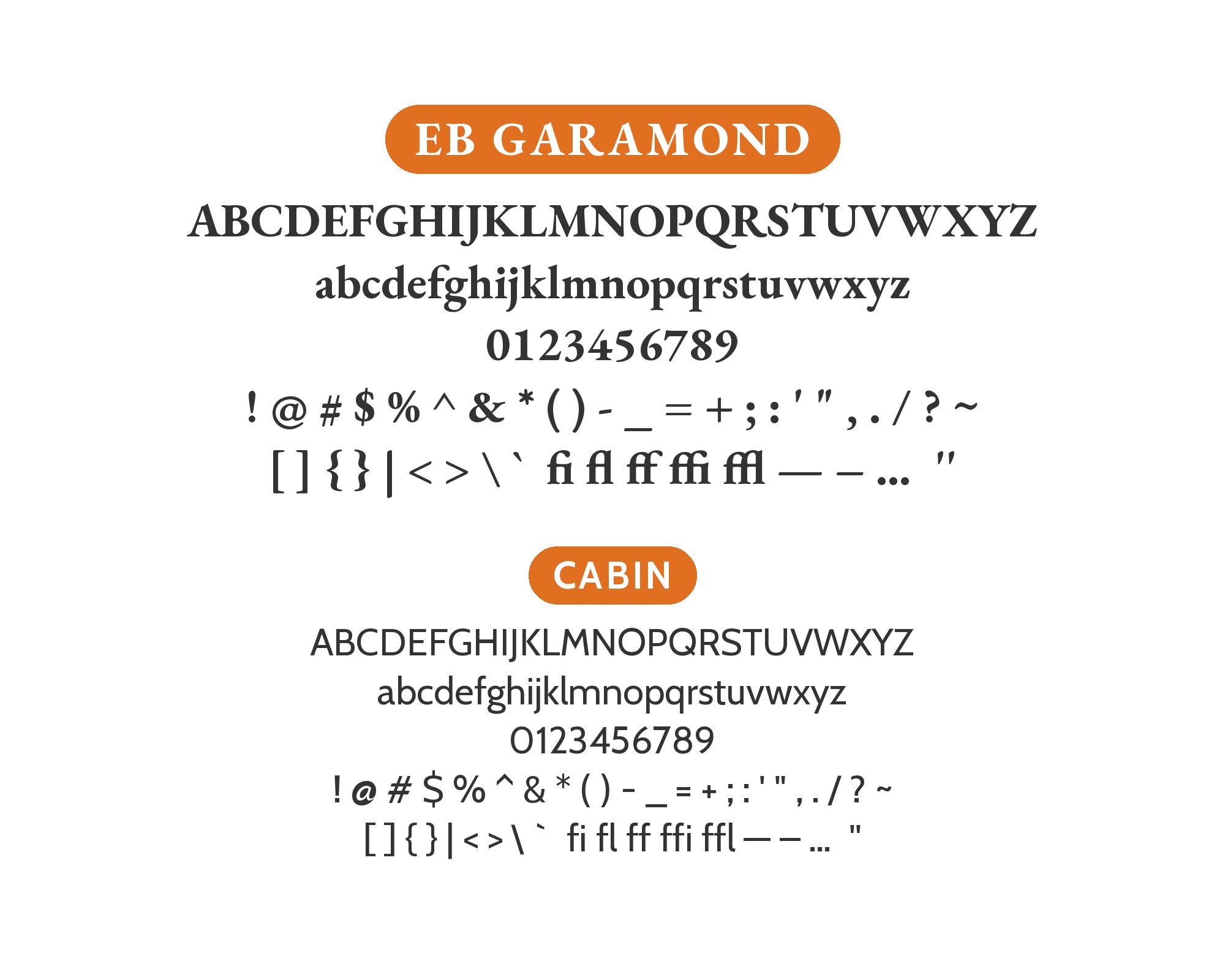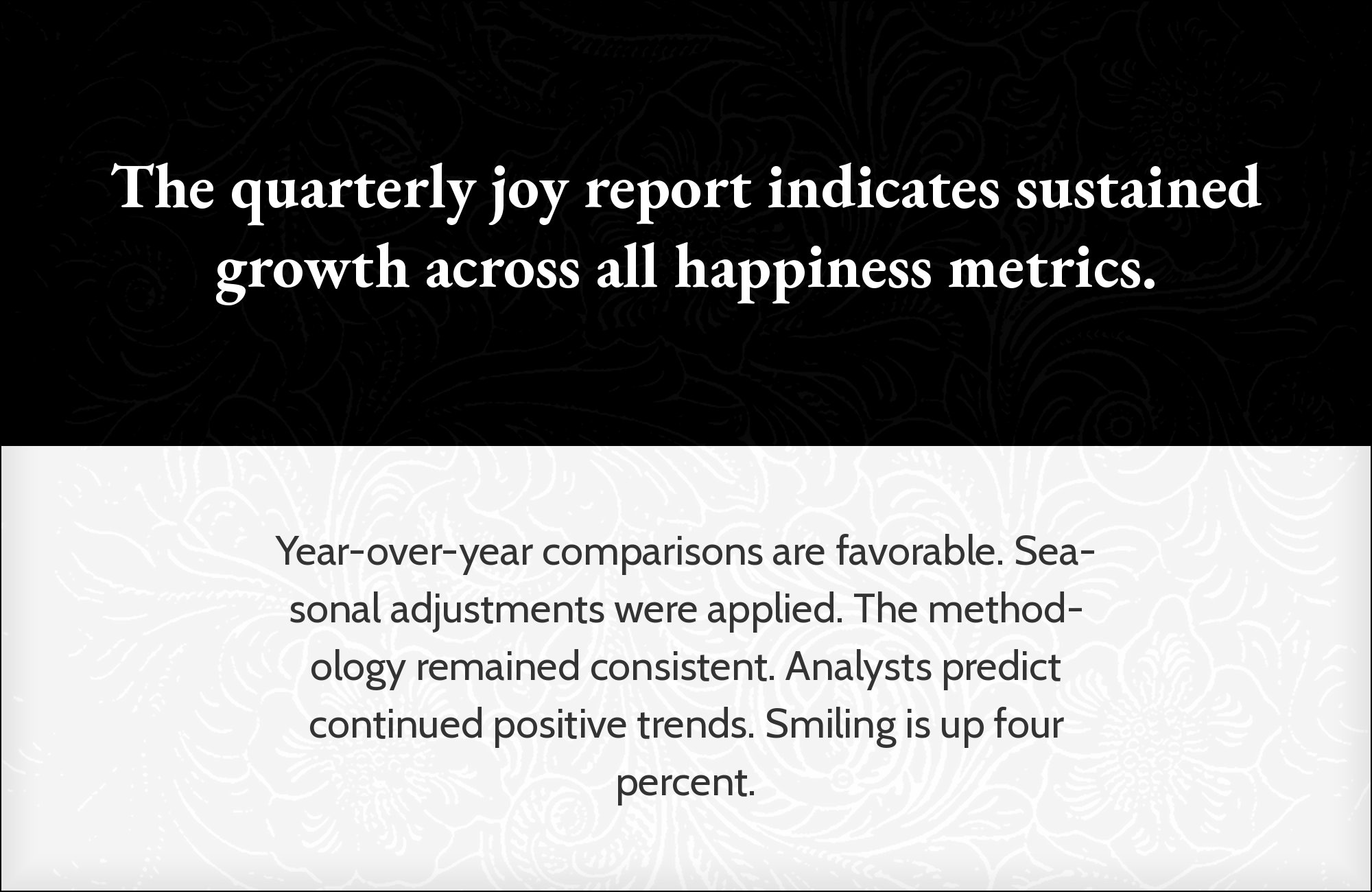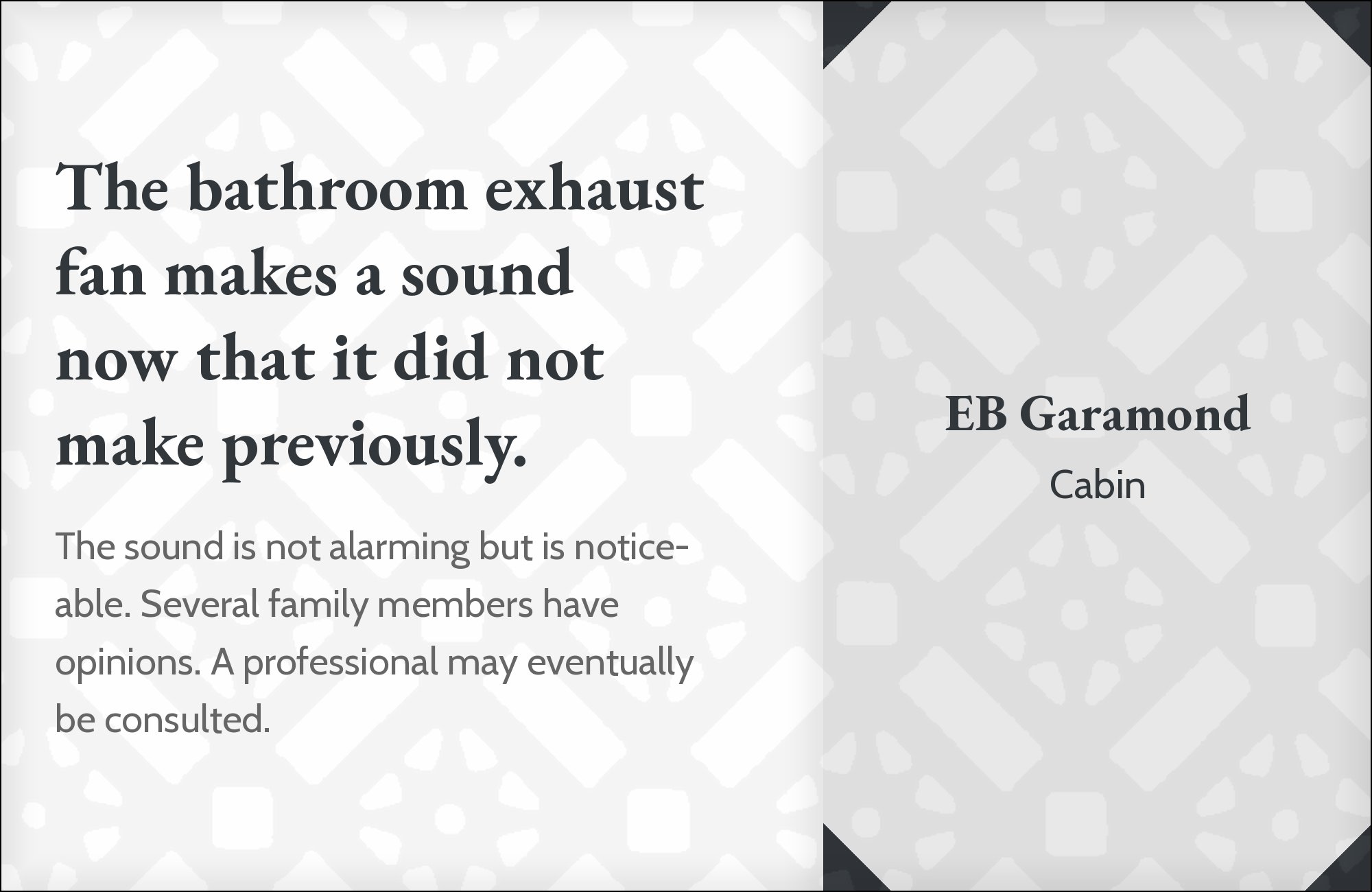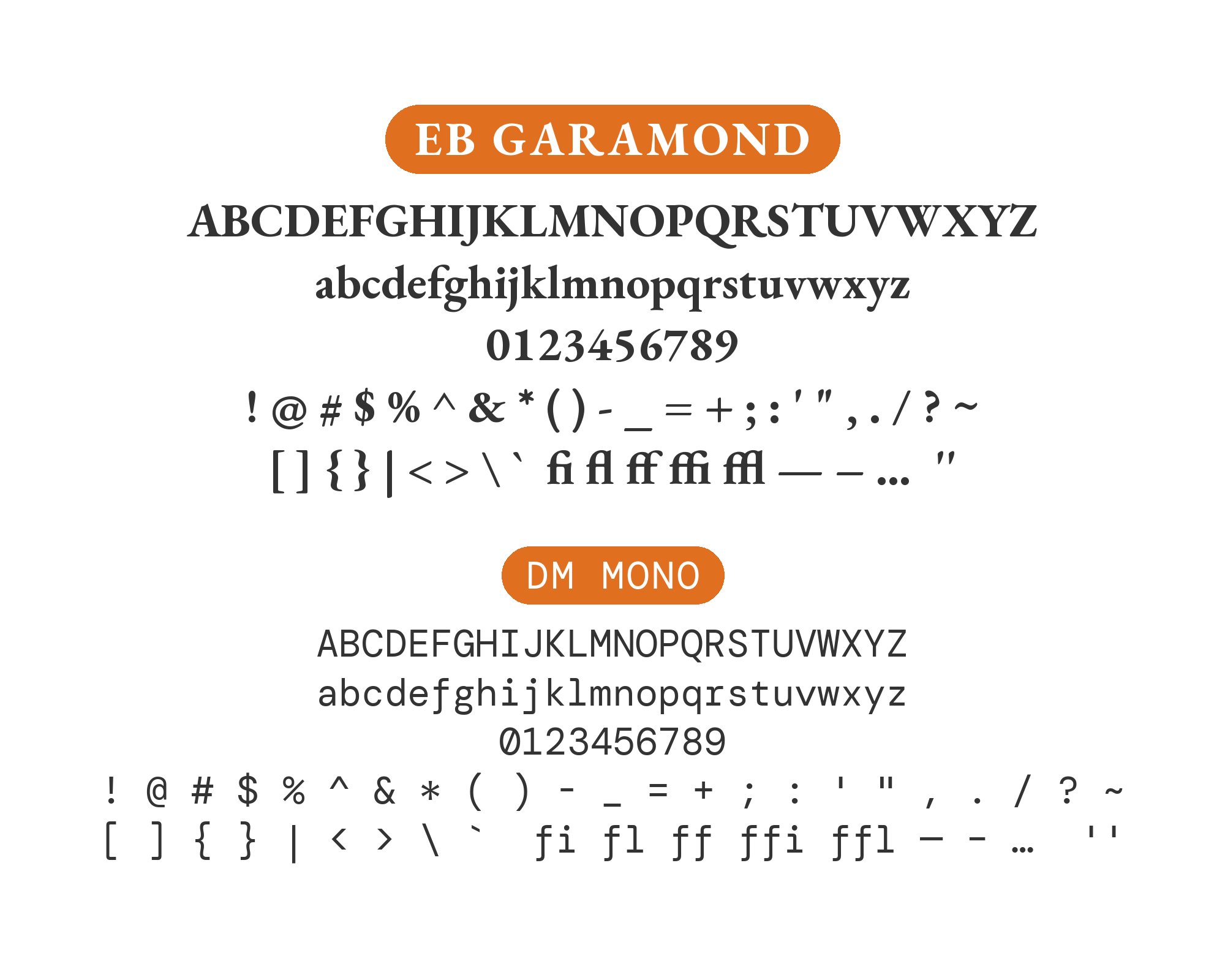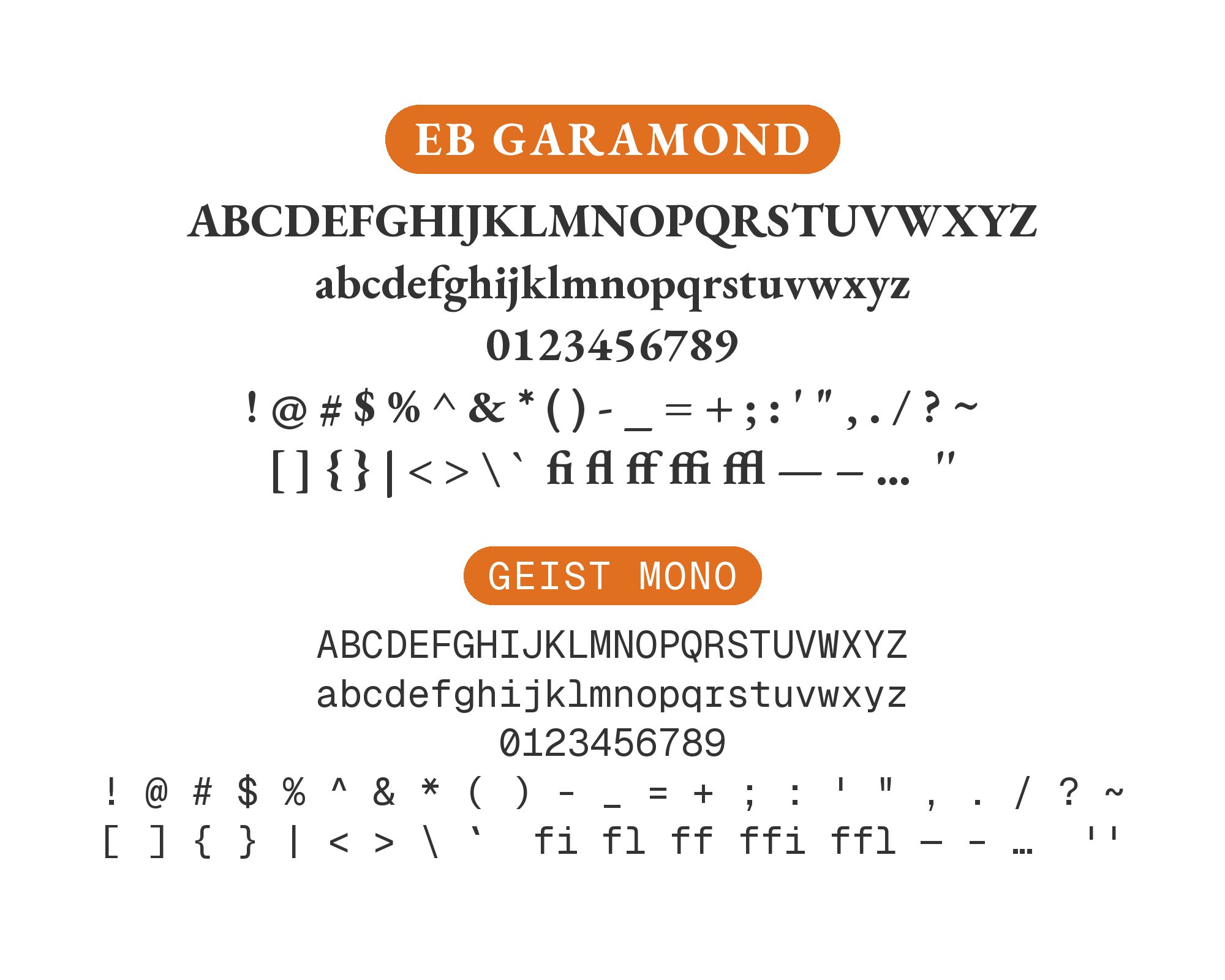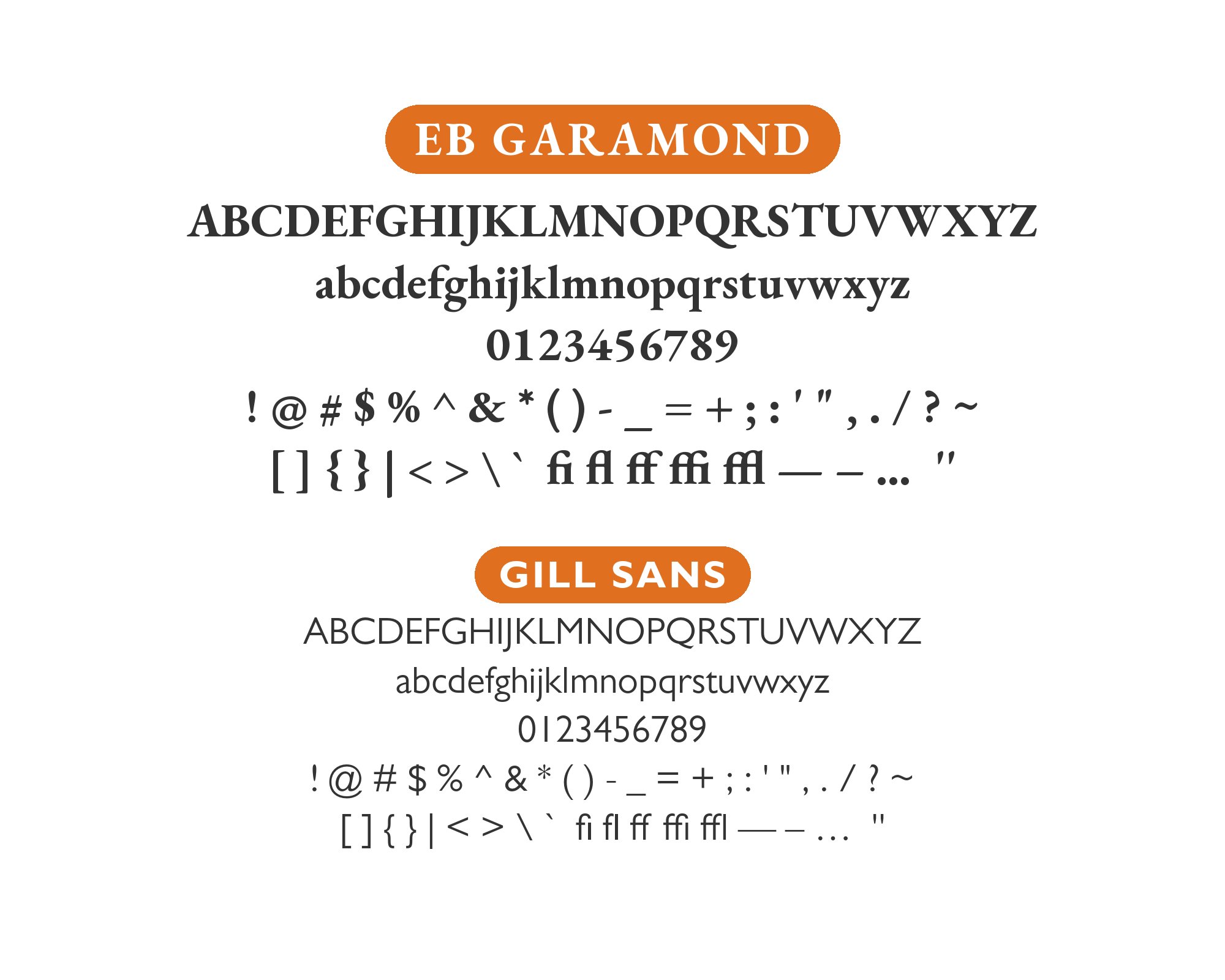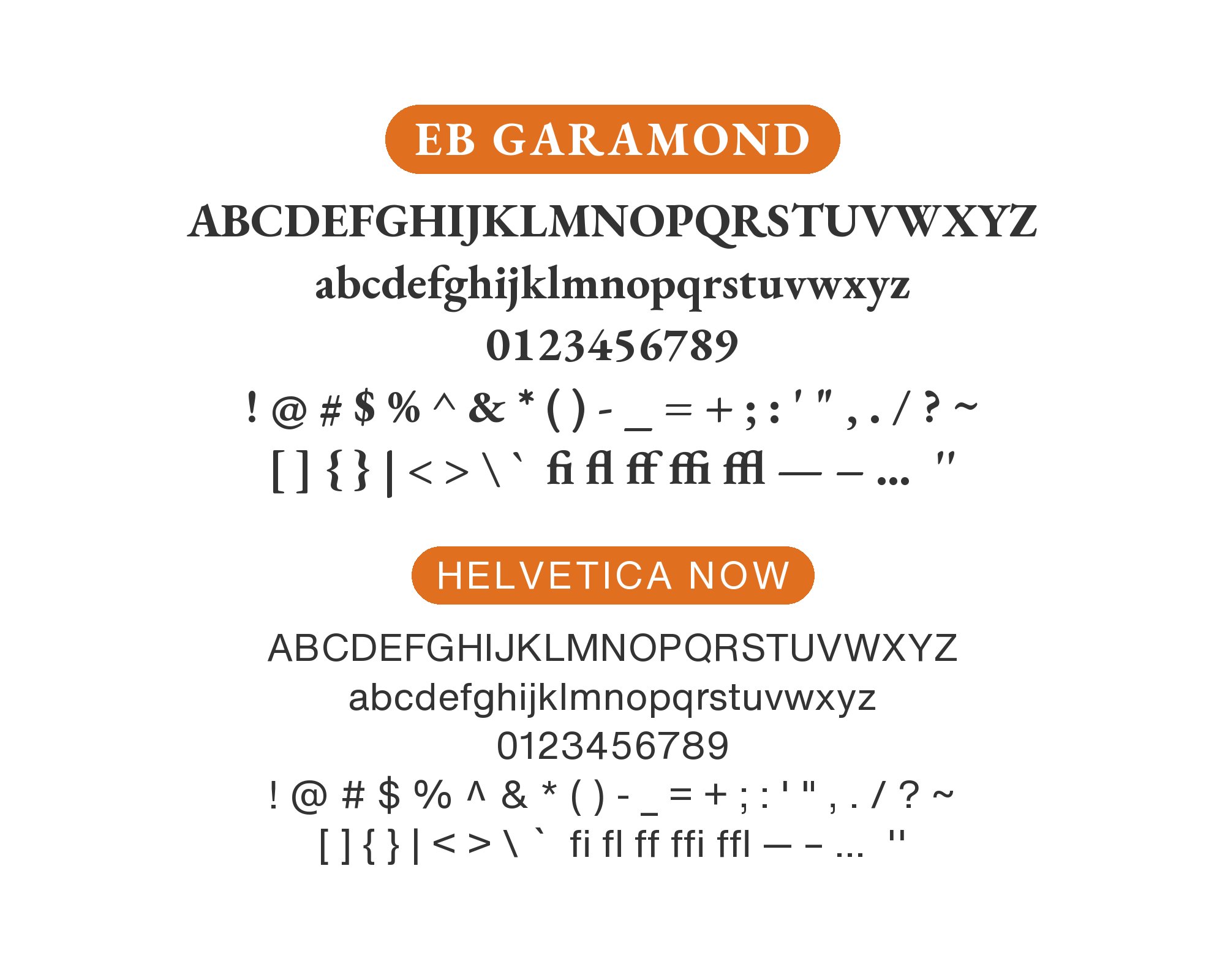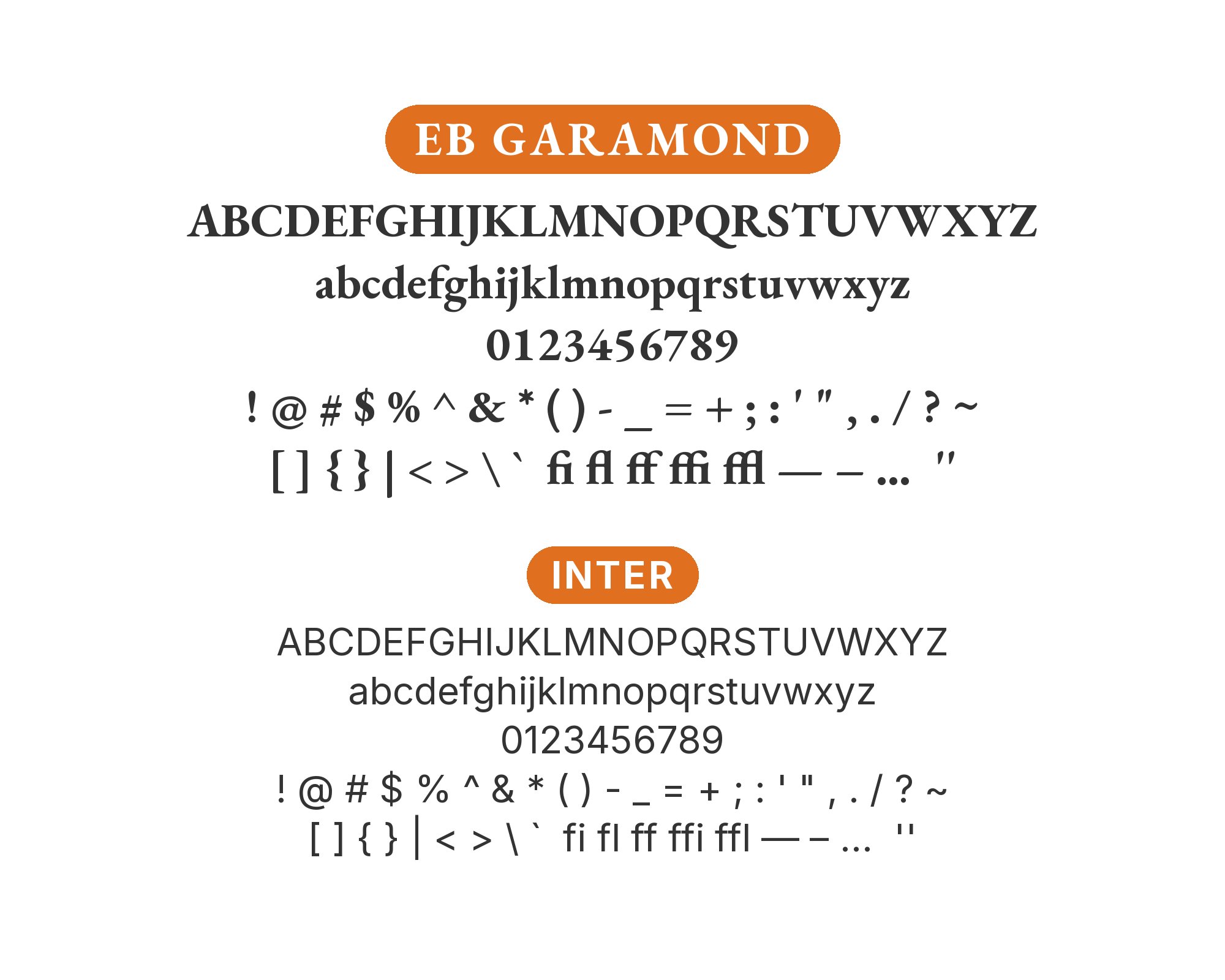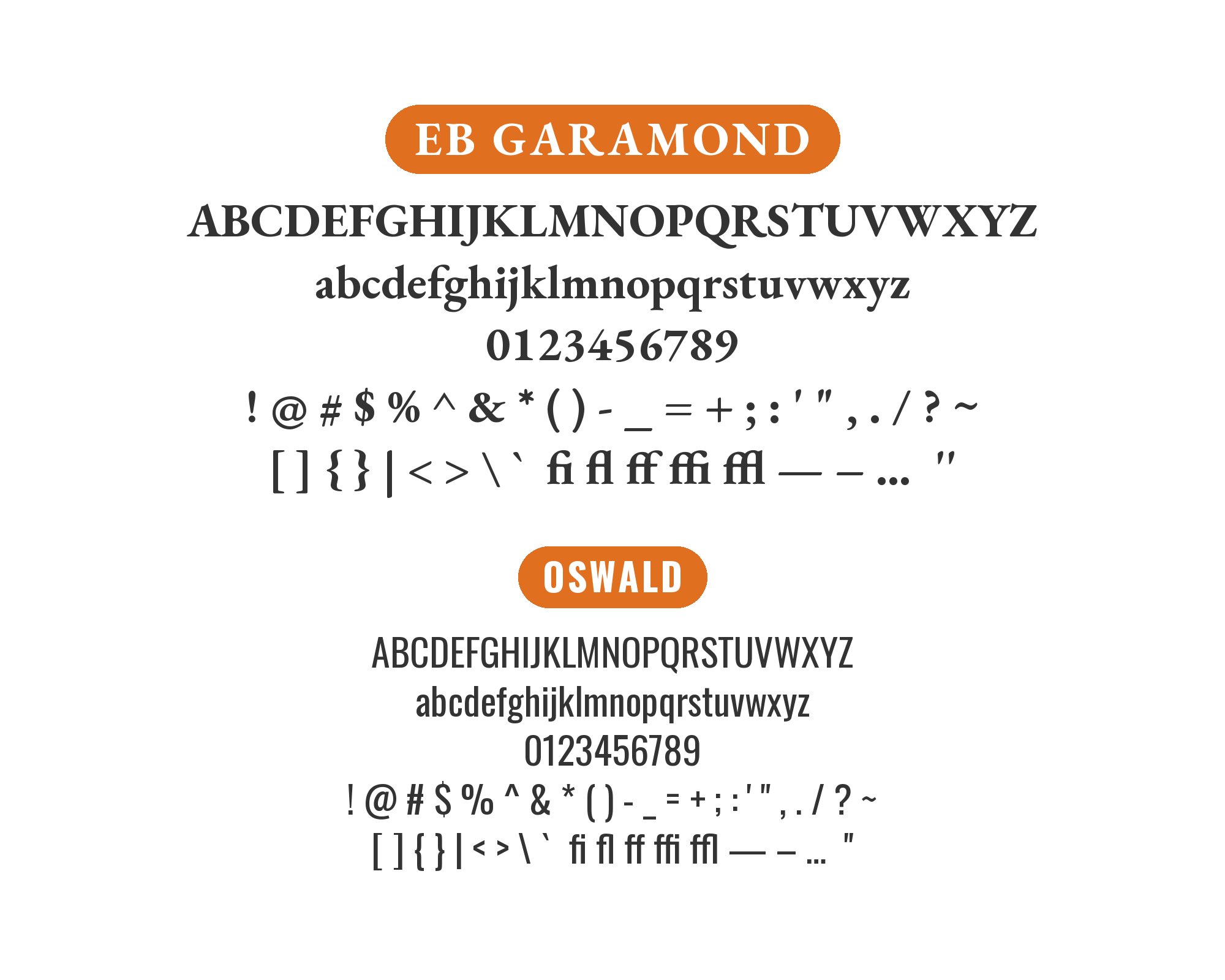
EB Garamond pairs great with Inter, Oswald and Cabin. All 14 pairings are shown below in real rendered specimens, with the reason each one works.
What fonts go with EB Garamond? It is the free, open-source Garamond revival, and that single fact — free — shapes almost every good pairing decision you can make with it.
EB Garamond was drawn by Georg Duffner through the Egenolff-Berner project, a direct return to Claude Garamont’s sixteenth-century Roman types as printed in the 1592 Egenolff-Berner specimen. That makes it a different animal from Adobe Garamond, another modern digital cut of Garamond’s types, and from Monotype Garamond, which follows the later types of Jean Jannon: same Renaissance ancestry, different hands redrawing it centuries later. EB Garamond keeps the calligraphic stress, moderate contrast and small, old-style x-height of the original punches, so it reads as unmistakably historical rather than smoothed into something contemporary.
Most readers searching for EB Garamond found it because it costs nothing, and that changes the pairing calculus. A partner that is itself locked behind a subscription undercuts the reason someone chose this face in the first place, so the fifteen fonts below lean heavily toward free, open-source partners, with a handful of system and retail options kept further down the list for anyone working outside the browser. Here are 15 fonts that pair well with EB Garamond.
1. Inter
Inter is a sans serif drawn specifically for screen interfaces, with a tall x-height, low stroke contrast and near-total absence of historical ornament. Set against EB Garamond’s calligraphic stress and small, old-style proportions, it reads as the present tense to Garamond’s sixteenth century. EB Garamond and Inter appear together on the Applied Labs site. Free to use, Inter is a practical way to give an EB Garamond site working UI: buttons, forms, navigation. Reserve EB Garamond for headlines and body reading; let Inter run the interface underneath at 14–16px.
2. Oswald
Oswald is a condensed grotesque with tall caps, moderate x-height and blunt, even terminals — a twentieth-century poster face where EB Garamond is a sixteenth-century book face. One of the few sources that names EB Garamond directly recommends exactly this pairing, and the logic holds up: Oswald’s narrow width claims headline space efficiently while EB Garamond’s open, lower-contrast letterforms stay comfortable at paragraph length underneath. The two share no structural ground at all — condensed against normal width, blunt terminals against bracketed serifs — and that is what keeps the split readable. Set Oswald in caps for short headlines only; it has no reading-length use.
3. Cabin
Cabin is a humanist sans inspired by Edward Johnston’s and Eric Gill’s typefaces, with almost monolinear strokes and proportions loosely descended from the same Roman-inscription tradition as classic serif type. That shared ancestry is what makes it work: Cabin echoes Garamond’s warmth instead of imitating its historical forms outright, so a Cabin headline over EB Garamond body text feels related rather than opposed. It is a softer contrast than a strict geometric sans would give, which suits editorial and small-business sites that want warmth without going fully historical. Use Cabin for headings and short UI labels; keep the reading text in EB Garamond.
Book an Hour4. Work Sans
Work Sans is a grotesque drawn for comfortable reading at medium screen sizes — open apertures, an even stroke weight and a plain, unshowy structure with no display flourishes. EB Garamond and Work Sans appear together on Nick Levesque’s portfolio. Against EB Garamond’s calligraphic serifs it softens the page’s formality wherever the layout needs plain, functional type: navigation, captions, form labels, footers. Its even stroke colour also survives the small, repeated elements where Garamond’s modulated strokes start to break up. Set Work Sans at UI sizes only; EB Garamond should still carry the long-form reading experience.
5. Fraunces
Fraunces is a display Old Style soft-serif, inspired by Windsor, Souvenir and the Cooper series, with optional wonky characters, built for personality at large sizes rather than length. Beside EB Garamond it produces a serif-on-serif pairing rather than the usual serif-plus-sans split: Fraunces takes the loud, characterful headline role while EB Garamond’s calmer, lower-contrast old-style forms — small x-height, moderate contrast — handle the quiet work of actual reading underneath. That closeness in family but distance in temperament is the whole appeal. Try Fraunces above 24px, then judge the pair at the sizes you will actually publish.
6. Jost
Jost is a free geometric sans built in the mold of 1920s circle-and-line designs — true circular bowls, a single-story lowercase, and almost no stroke contrast. Setting a strict geometric sans against an old-style Garamond serif is one of the oldest moves in type pairing, and it works here for the same reason it always has: maximum stylistic distance between a calligraphic pen letter and a compass-drawn one. Insanity Works documents this pairing against Stempel Garamond, not EB Garamond; the Garalde structure transfers, but the cuts differ. Use Jost for short, confident headlines and EB Garamond for the body copy underneath — a combination suited to modern editorial and portfolio sites that still want serif warmth in the text.
7. Public Sans
Public Sans is a plain, sturdy neo-grotesque built for dense interface and government-form text — even strokes, a tall x-height, and no personality to speak of by design. That neutrality is the point beside EB Garamond: Public Sans handles labels, data tables and navigation with total clarity, leaving EB Garamond free to carry headlines and long-form reading without any competition for attention. It is free and open-source, developed for public-sector use but usable anywhere. Best in documentation, civic, and institutional sites where EB Garamond supplies warmth and Public Sans supplies legibility at small sizes.
Then test the combination at the sizes you will actually publish. A monospace label looks sharp in a mockup and cramped in a real sidebar, and a display serif like Fraunces can turn muddy the moment it drops below headline size. Set real copy in the browser before deciding anything is final.